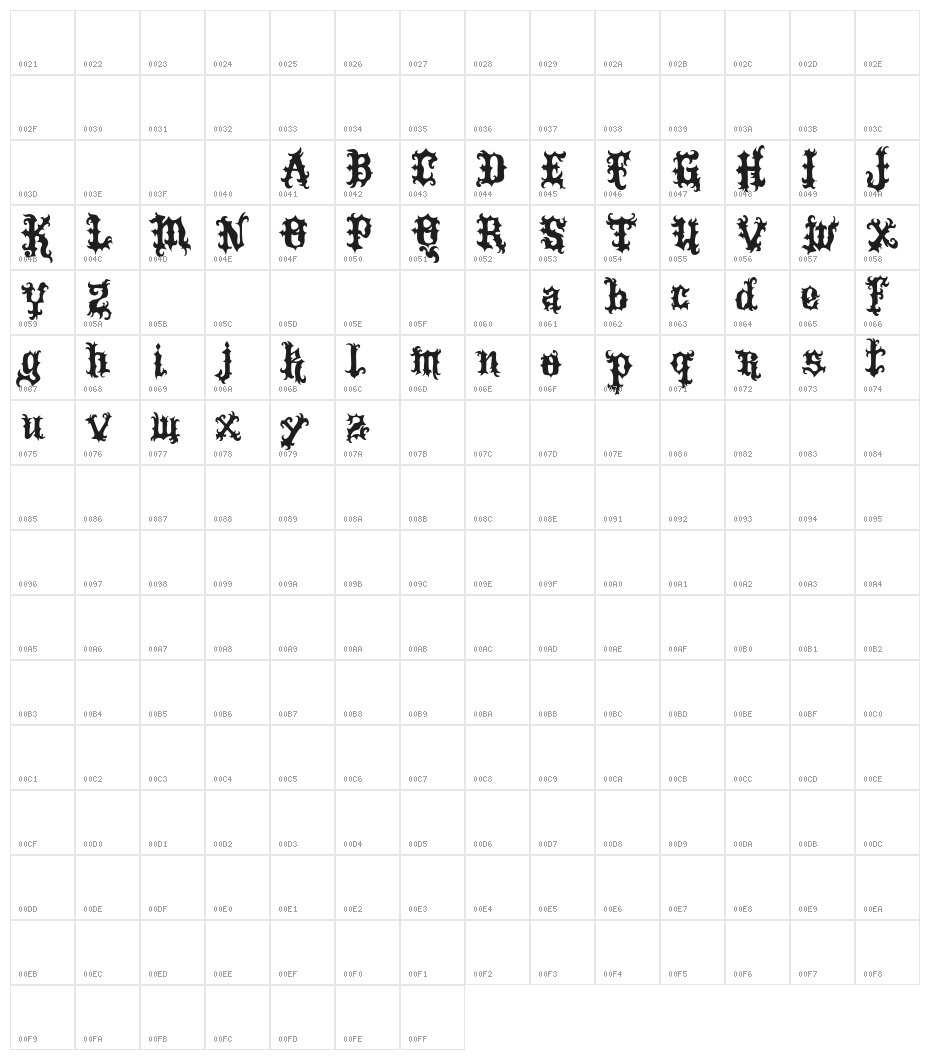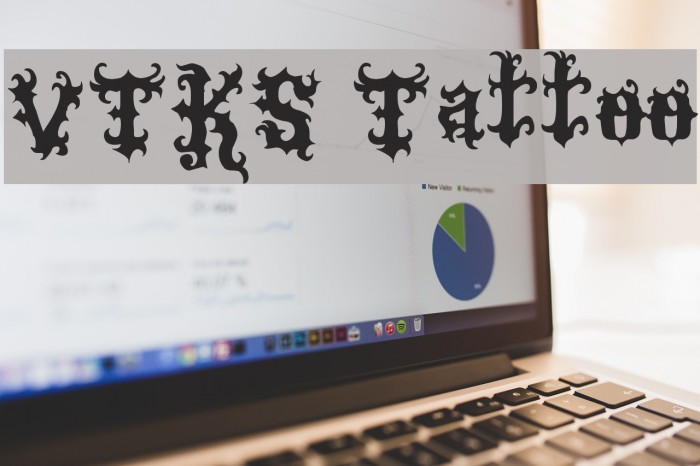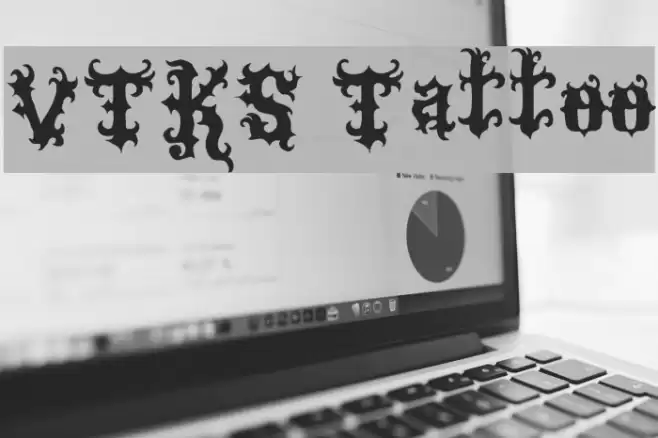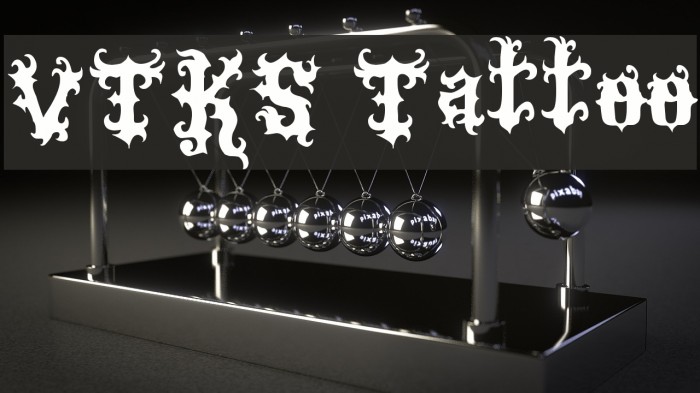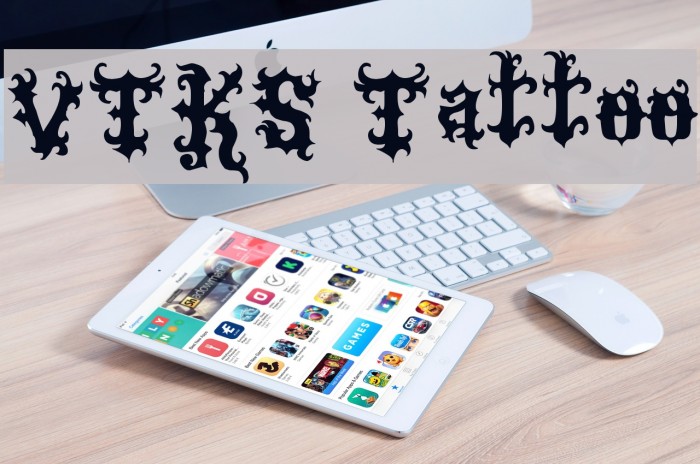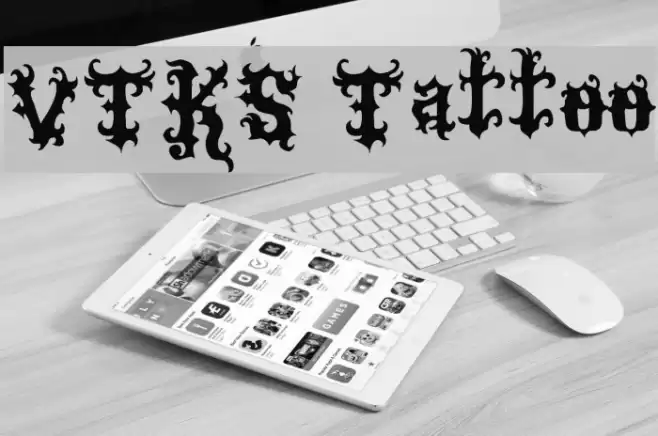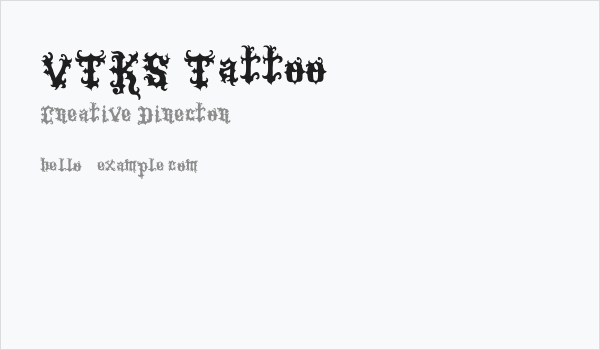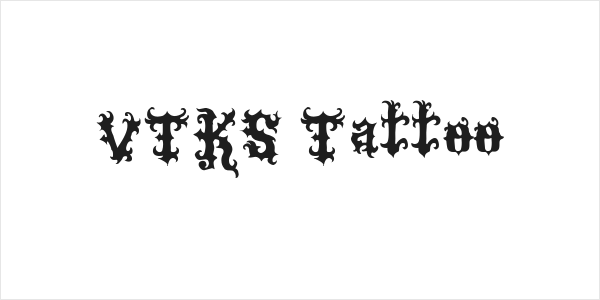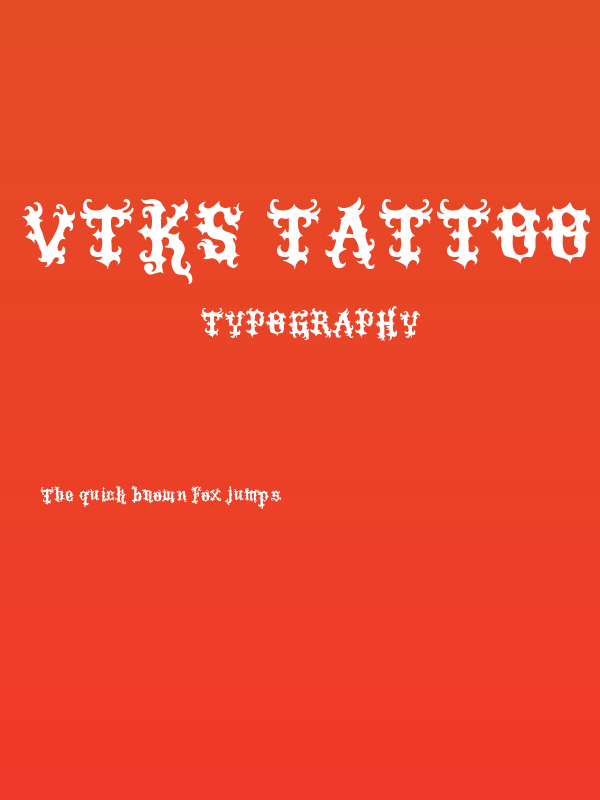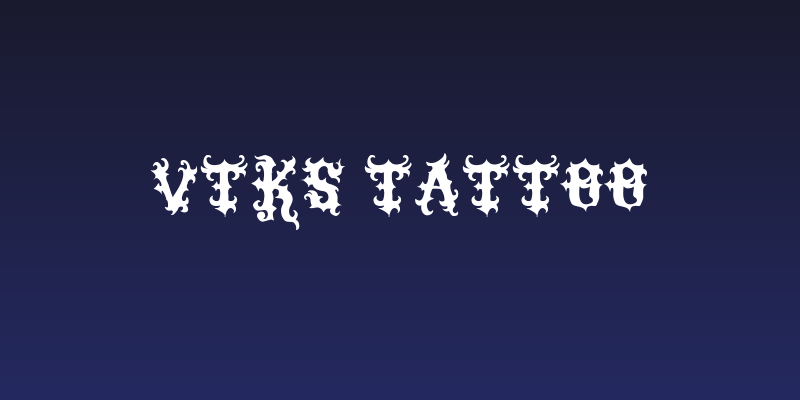
VTKS Tattoo Font
VTKS Tattoo Description
This font exhibits a bold and intricate design, characterized by its ornate and decorative elements. Each letter is adorned with elaborate flourishes and sharp, pointed edges, reminiscent of traditional tattoo art. The style is highly decorative, with a strong emphasis on visual impact, making it ideal for eye-catching designs. The uppercase and lowercase letters maintain a consistent theme, with the lowercase being slightly more compact. The numerals and special characters follow the same ornate style, ensuring a cohesive look across all text elements.
| Proposed Projects | Ideal for tattoo designs, gothic-themed posters, album covers, and any project requiring a dramatic and artistic flair. |